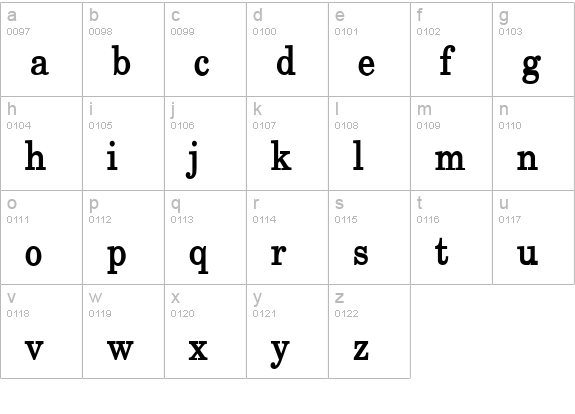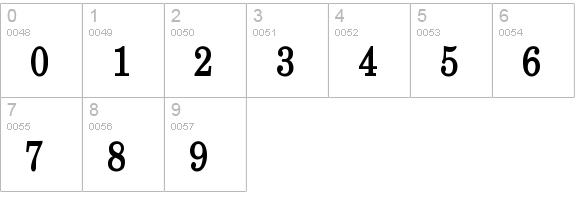
New Boston Condensed Bold Font Details
New Boston Condensed Bold is a strong, high-contrast, condensed-width variant in the New typeface family \xE2\x80\x94 well suited to headlines, attention-grabbing titles, and strong calls-to-action.
Introducing New Boston Condensed Bold, a sleek and powerful font that exudes confidence and modernity. With its bold, condensed design, this typeface commands attention and makes a strong statement in any design project. Perfect for headlines, titles, and branding materials, New Boston Condensed Bold is a versatile choice for a wide range of applications. This font is not only visually striking but also versatile, making it suitable for both digital and print media. Its clean lines and distinct letterforms ensure excellent readability even at smaller sizes, making it ideal for various design projects. And the best part? New Boston Condensed Bold is available for free download at FontsMarket.com. So go ahead and add this dynamic font to your collection today to elevate your designs to new heights!